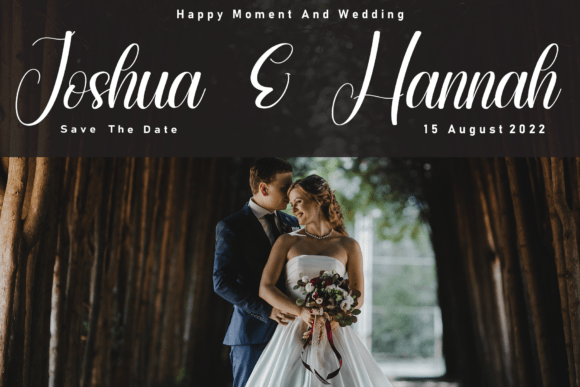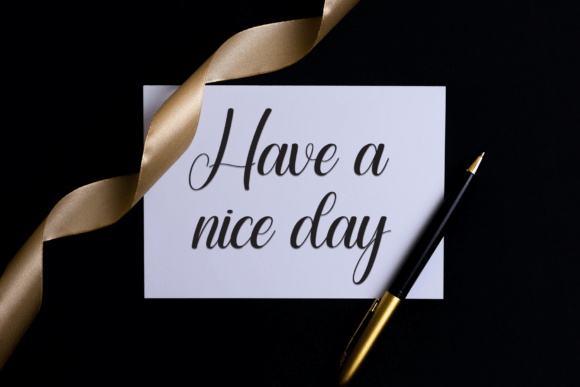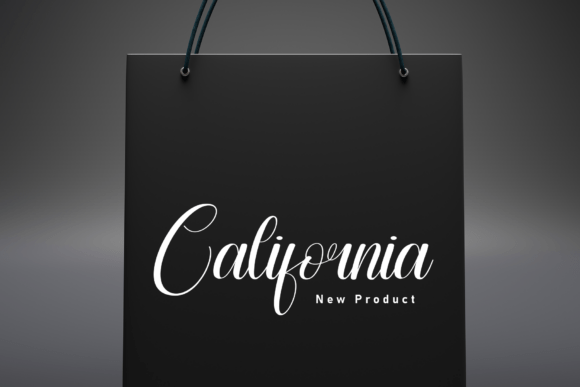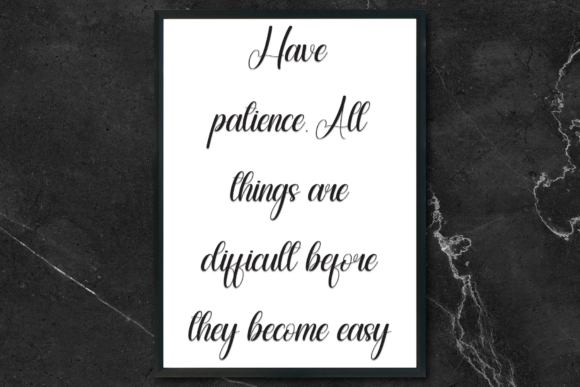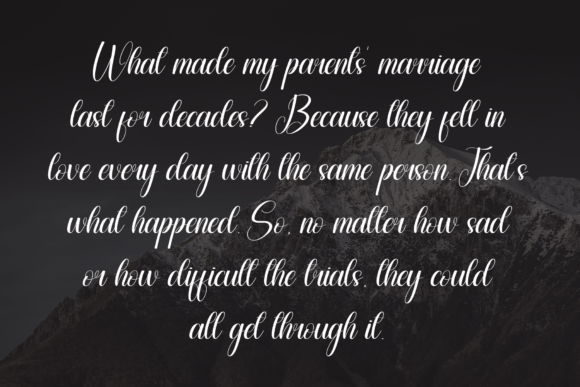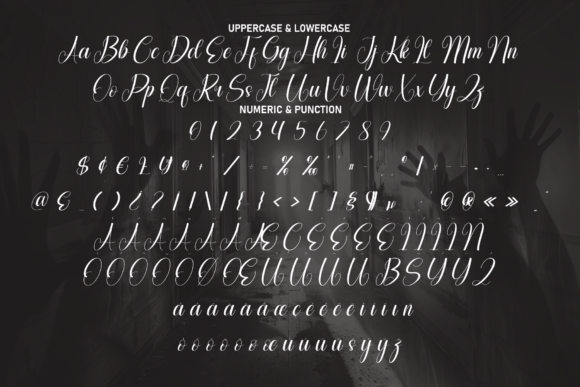
Unveiling Haunting Font: The Ultimate Calligraphic Display Font for Enchanting Designs
Are you tired of using ordinary fonts that fail to capture the essence of your artistic ventures? Look no further! We are thrilled to introduce Haunting Font, a captivating calligraphic display font that exudes an irresistible charisma and a comforting aura. This premium font is designed to add a touch of magic to your designs, making it the perfect choice for creating spellbinding wedding cards, intimate messages, and other artistic projects that require a dash of sparkle and vibrant colors.
The Art of Enchantment: What Makes Haunting Font So Special?
Haunting Font is more than just a font – it’s an experience. Each detail and stroke is carefully crafted to radiate an energetic radiance that fully enchants. The font’s unique calligraphic style is infused with a sense of elegance and sophistication, making it perfect for designers and crafters who want to create distinct and unforgettable impressions.
One of the standout features of Haunting Font is its ability to add a touch of whimsy and romance to any design. Whether you’re creating wedding invitations, greeting cards, or social media graphics, this font is sure to captivate your audience and leave a lasting impression.
Bringing Your Designs to Life with Haunting Font
Utilizing Haunting Font simplifies the process of creating enchanting designs that ensnare viewers. With this extraordinary font, you can add an electrifying liveliness to your work, making it perfect for designers and crafters who want to push the boundaries of creativity.
Haunting Font is versatile and can be used for a wide range of design projects, including:
- Wedding cards and invitations
- Intimate messages and love letters
- Artistic ventures and creative projects
Why Choose Haunting Font?
So, what sets Haunting Font apart from other fonts on the market? Here are just a few reasons why designers and crafters are falling in love with this captivating calligraphic display font:
- Unique and captivating design: Haunting Font is unlike any other font on the market. Its distinctive calligraphic style is sure to capture the attention of your audience and leave a lasting impression.
- Versatile and adaptable: Whether you’re designing for print or digital, Haunting Font is the perfect choice. Its versatility makes it suitable for a wide range of design projects.
- Ease of use: Haunting Font is easy to use and integrate into your designs. Its user-friendly format makes it simple to customize and adjust to suit your needs.
- Premium quality: Haunting Font is a premium font that is designed to deliver exceptional results. Its high-quality design and craftsmanship make it a valuable addition to any designer’s toolkit.
Tips and Tricks for Getting the Most Out of Haunting Font
To help you get the most out of Haunting Font, here are a few tips and tricks to keep in mind:
- Experiment with colors: Haunting Font is designed to work beautifully with a range of colors. Experiment with different hues and combinations to find the perfect look for your design.
- Play with textures: Adding textures and patterns to your design can help to add depth and interest. Try combining Haunting Font with different textures and patterns to create a unique look.
- Mix and match with other fonts: Haunting Font is versatile and can be paired with a range of other fonts. Experiment with different font combinations to find the perfect look for your design.
In conclusion, Haunting Font is a captivating calligraphic display font that is sure to enchant and delight. Its unique design, versatility, and ease of use make it the perfect choice for designers and crafters who want to create spellbinding designs that leave a lasting impression.
Whether you’re designing wedding cards, intimate messages, or artistic ventures, Haunting Font is the perfect tool to help you bring your creative vision to life. So why wait? Download Haunting Font today and start creating enchanting designs that ensnare and captivate your audience.